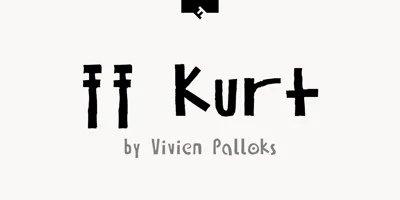
FF Kurt Font
FF Kurt Font is ideal for contemporary and urban applications including modern tech startups, street art galleries, urban lifestyle magazines, creative agency branding, alternative music packaging, independent film titles, contemporary art exhibitions, and progressive cultural events. This distinctive typeface brings cutting-edge personality and metropolitan energy to projects requiring authentic urban character and contemporary creative expression.
What makes FF Kurt Font exciting is its bold expression of modern urban culture and creative rebellion against conventional typography. The font features dynamic letterforms with unexpected angles and distinctive character shapes that capture the spontaneous energy of street culture. Its unconventional design approach challenges traditional readability while maintaining strong visual impact, making it perfect for projects that need to stand out in crowded urban environments and connect with creative audiences.
The FF Kurt Font family encompasses multiple stylistic variations and alternative characters that enhance the urban aesthetic. From standard weights for versatile applications to experimental variants for maximum creative impact, each style maintains the signature metropolitan character. The family includes decorative elements and symbols inspired by urban culture that amplify the font's ability to communicate contemporary creativity and street-smart sophistication.
Creative agencies and urban brands consistently select FF Kurt Font for projects requiring authentic contemporary typography and metropolitan appeal. Whether developing creative industry materials, designing urban lifestyle campaigns, or creating alternative entertainment content, this font delivers exceptional character and cultural relevance. Its unique combination of urban authenticity and modern functionality makes it an essential tool for designers working with creative audiences who appreciate innovative typography that reflects contemporary urban culture and progressive creative thinking.